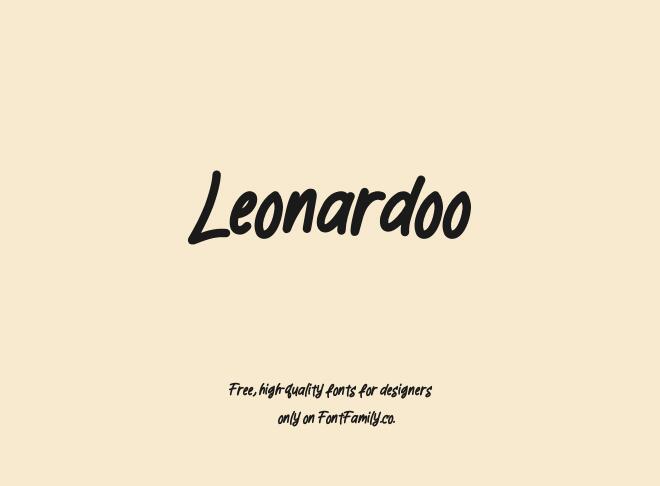
Leonardoo Font
Introducing Leonardoo Font, a modern and playful script typeface that is perfect for a variety of design projects. The font features a unique blend of modern and handwritten styles, making it a versatile choice for designers. Its playful curves and elegant letterforms make it a perfect fit for branding, logos, invitations, social media posts, and more. Compared to other fonts, Leonardoo stands out with its unique character and charm. Its modern aesthetics make it a great choice for contemporary designs, while its handwritten feel adds a personal touch. Leonardoo Font is a free font that is not only beautiful but also easy to use. Its wide range of characters and special features make it a must-have for every designer's toolkit.